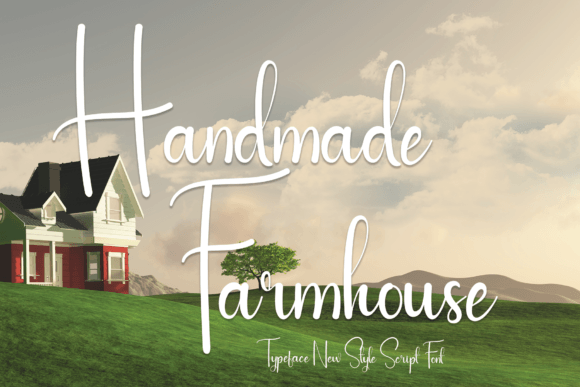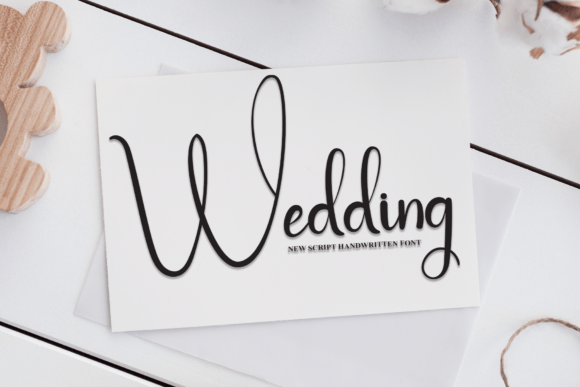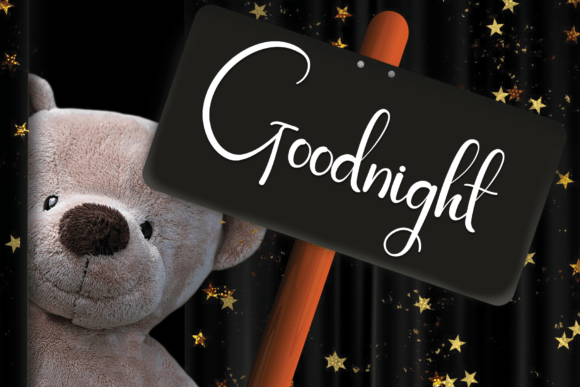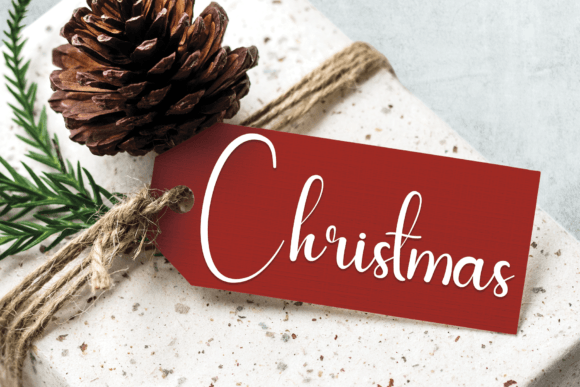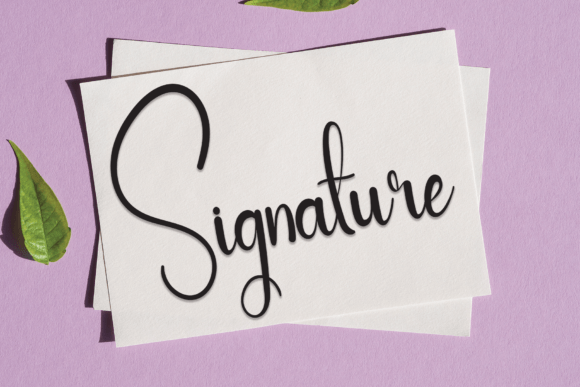
Handmade Farmhouse Font
Bring Charm to Your Designs with Handmade Farmhouse Font
Handmade Farmhouse Font is a sweet, handwritten script that effortlessly combines elegance with a playful twist. With its smooth strokes and warm personality, it adds a charming, romantic feel to every project. Whether you’re working on event invitations or personal crafts, this font makes your message more expressive.
A Font That Feels Personal and Creative
Thanks to its balanced curves and smooth flow, this font stands out in both print and digital formats. It’s ideal for anyone who wants their design to feel more human and heartfelt. In fact, the gentle look of Handmade Farmhouse Font can help set the perfect tone for celebrations or creative branding.
Perfect for a Variety of Uses
This font is not only adorable—it’s also flexible. You can use it in a wide range of projects without losing readability or style. It shines best in:
• Wedding invitations and RSVP cards
• DIY printables and scrapbooks
• Social media graphics and branding kits
• Baby shower decorations
• Personalized gifts or signage
If you want a font that feels handmade, genuine, and joyful, Handmade FarmhouseFont is a great choice.